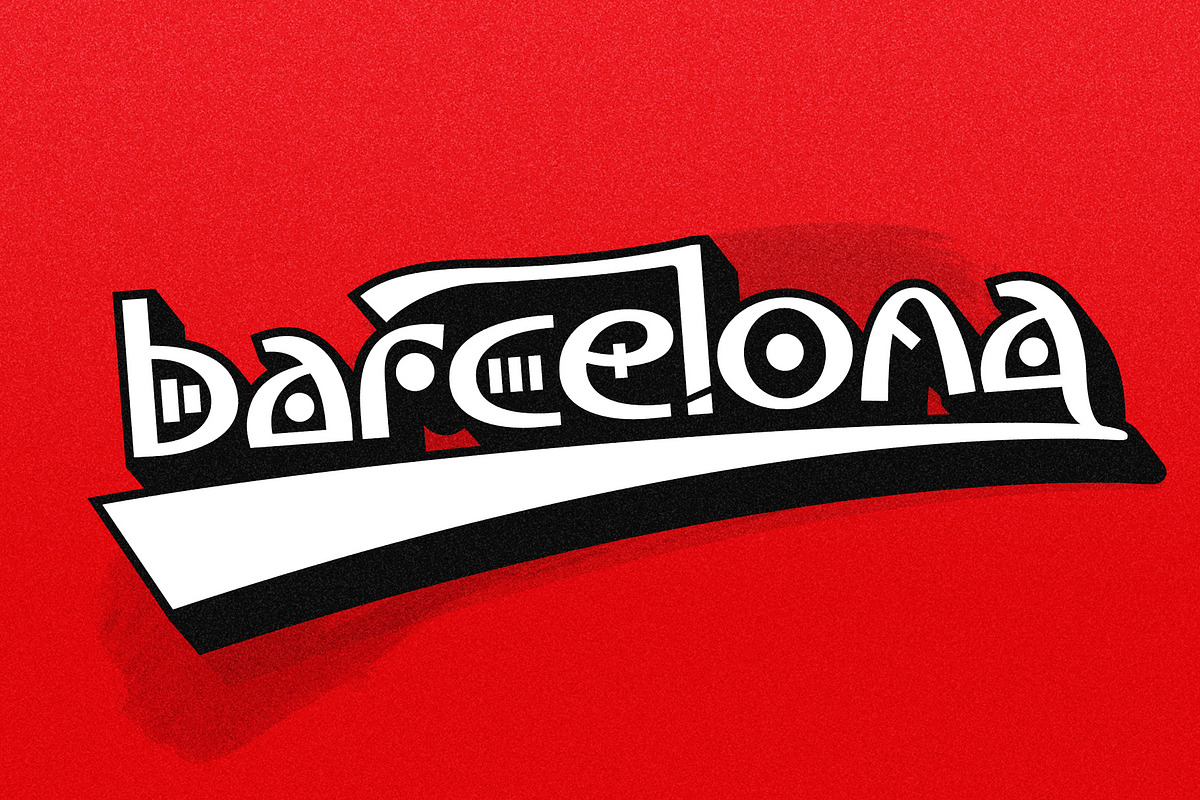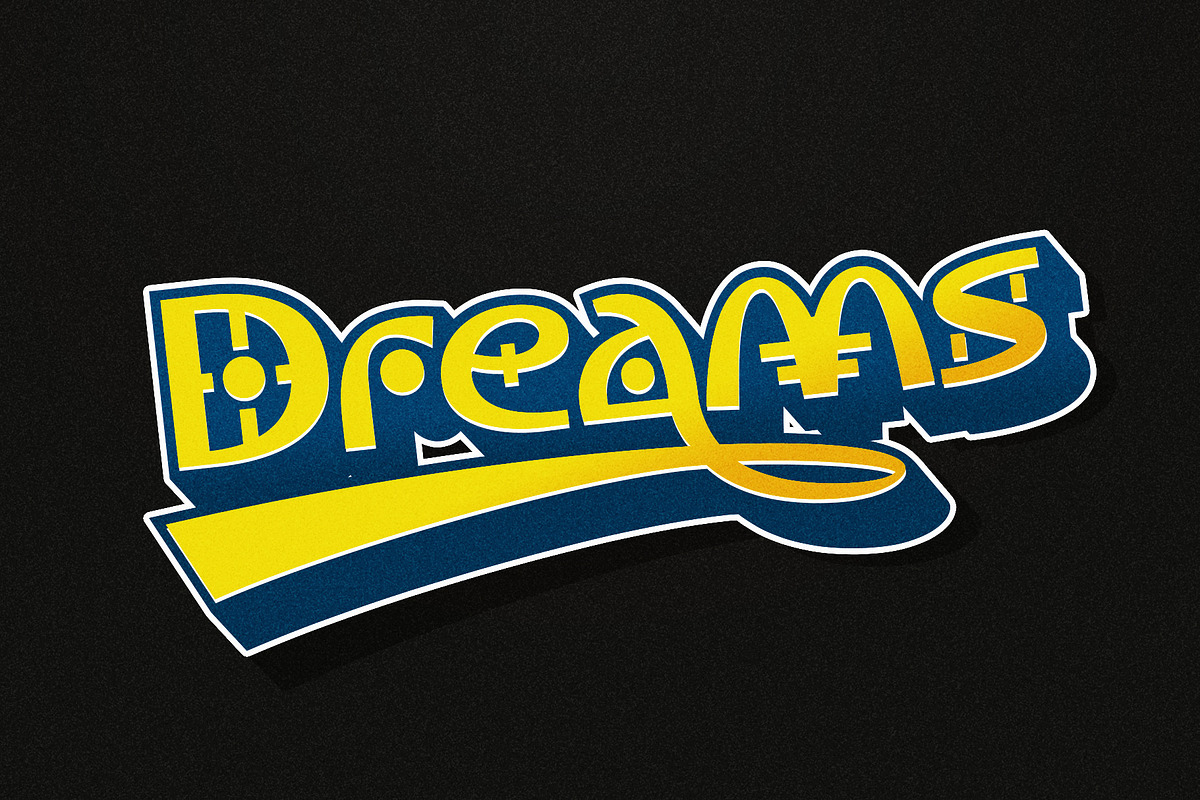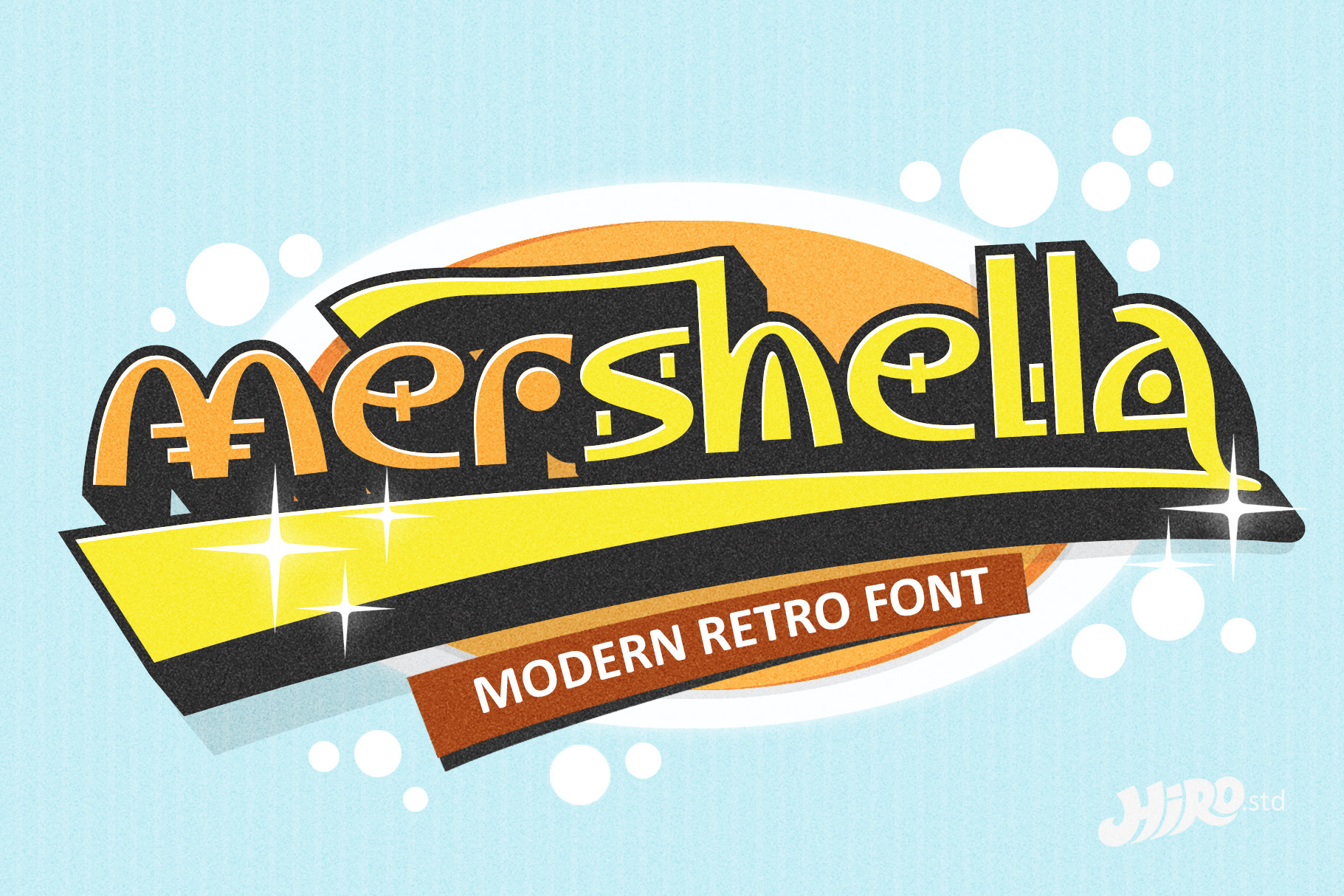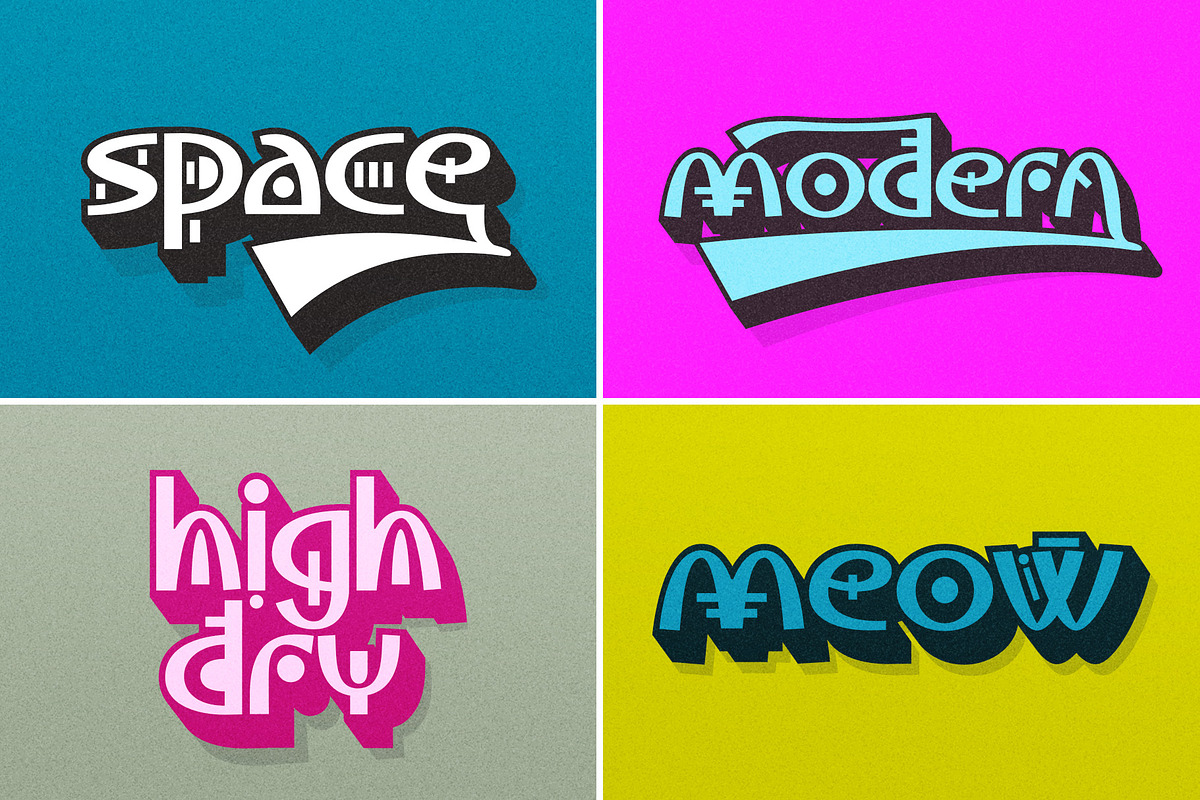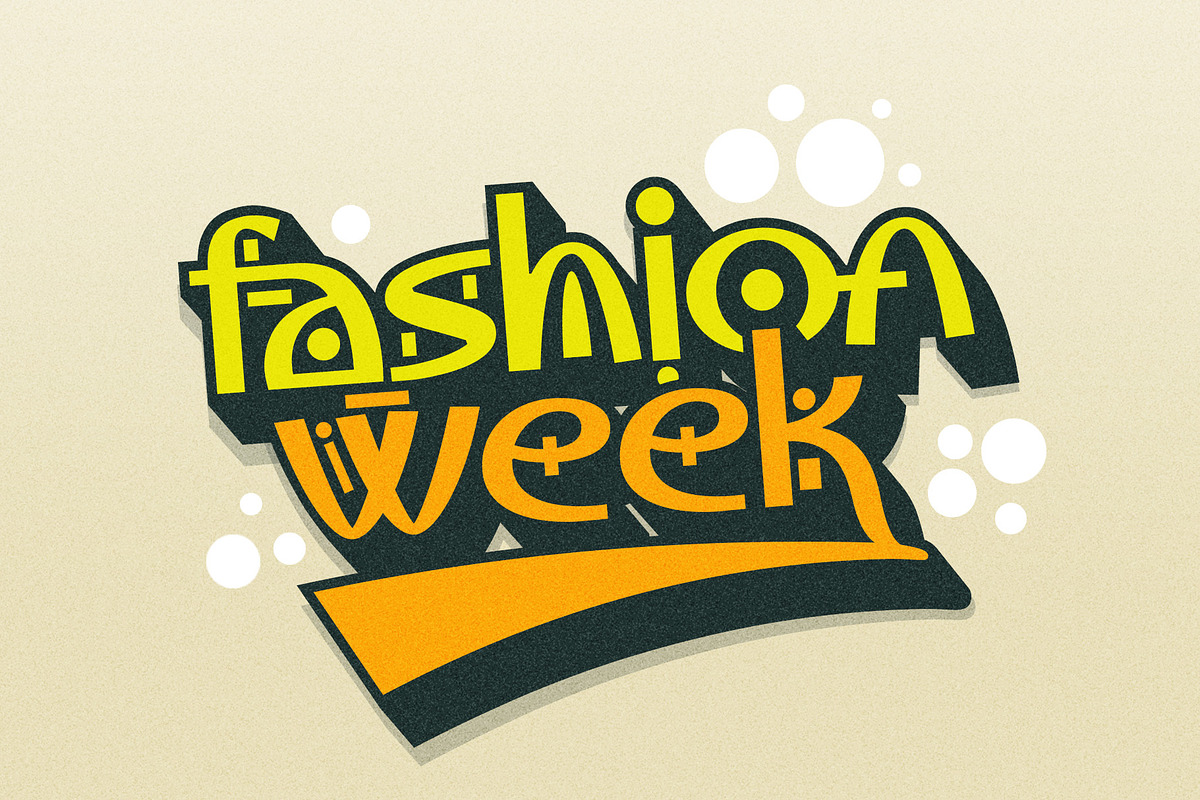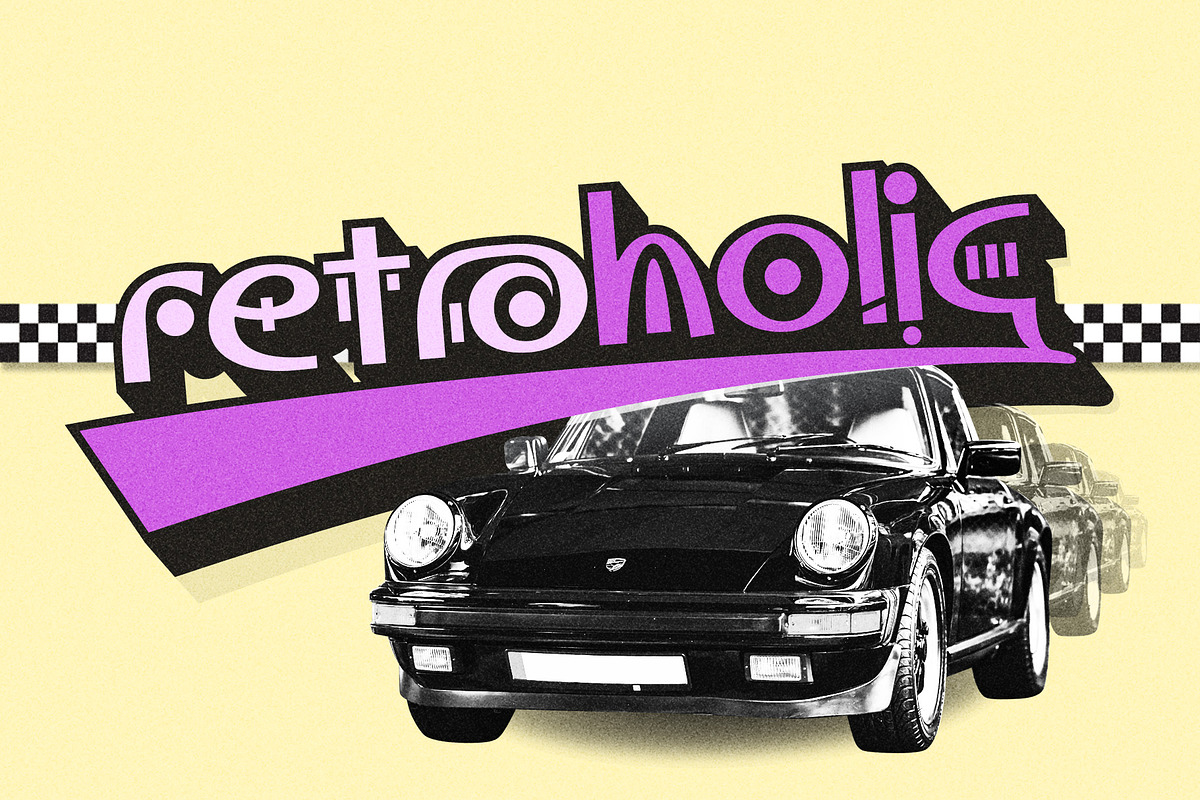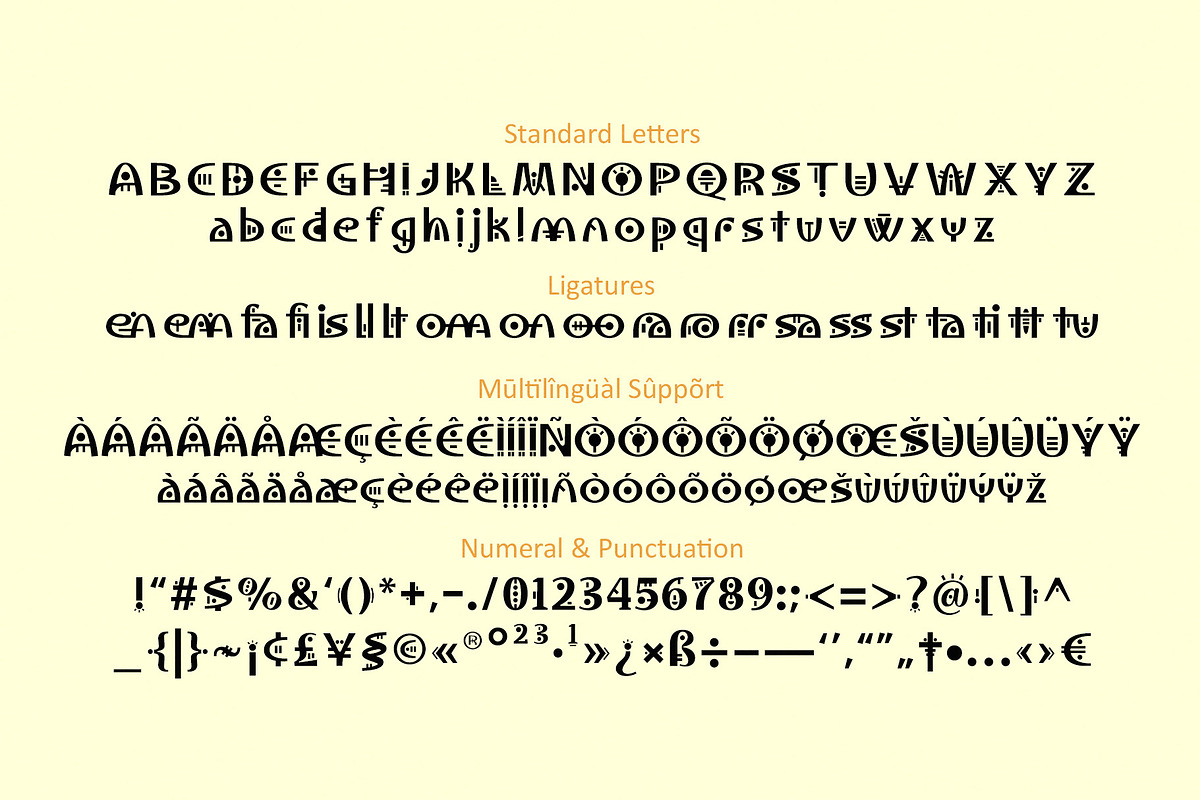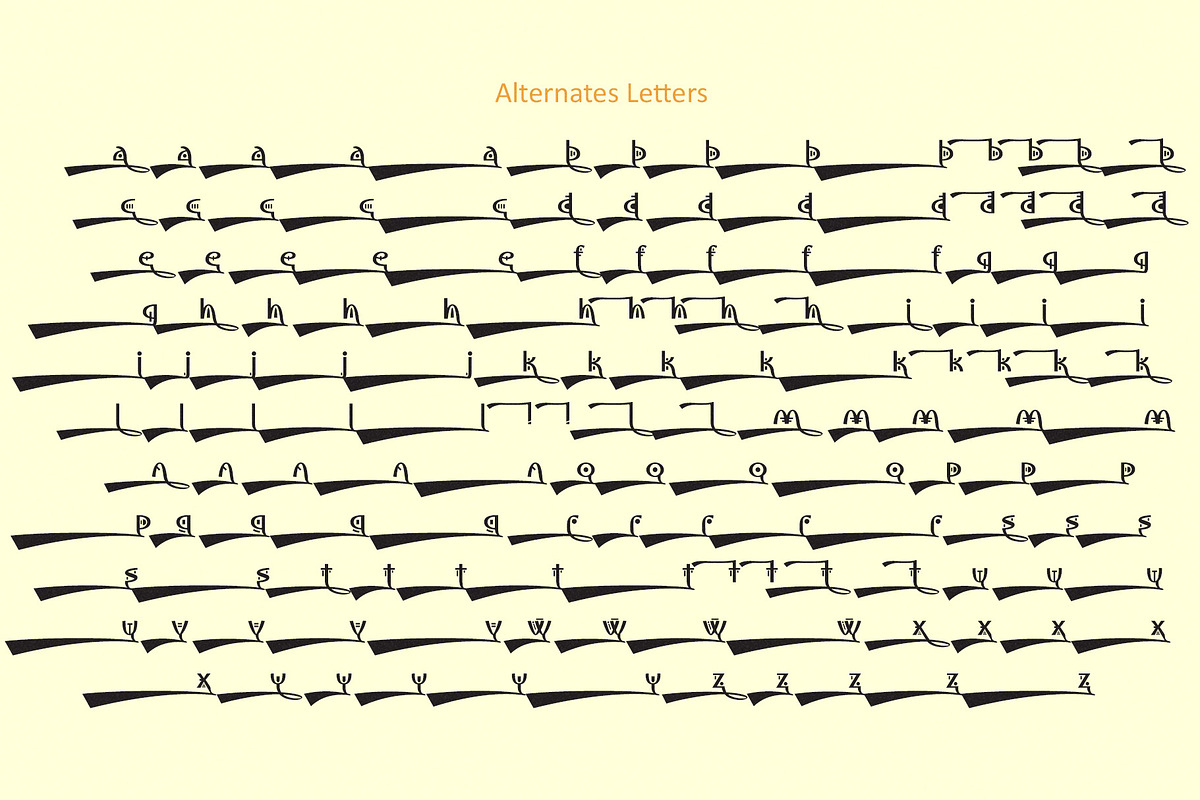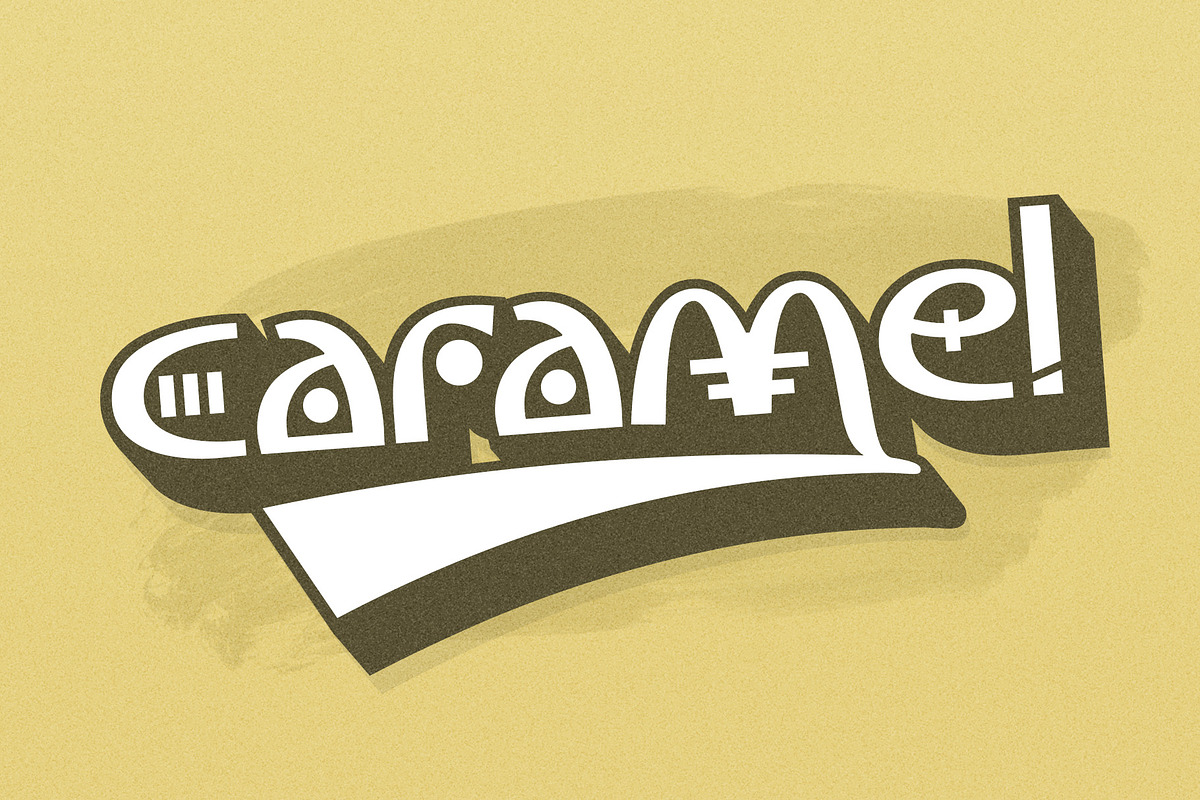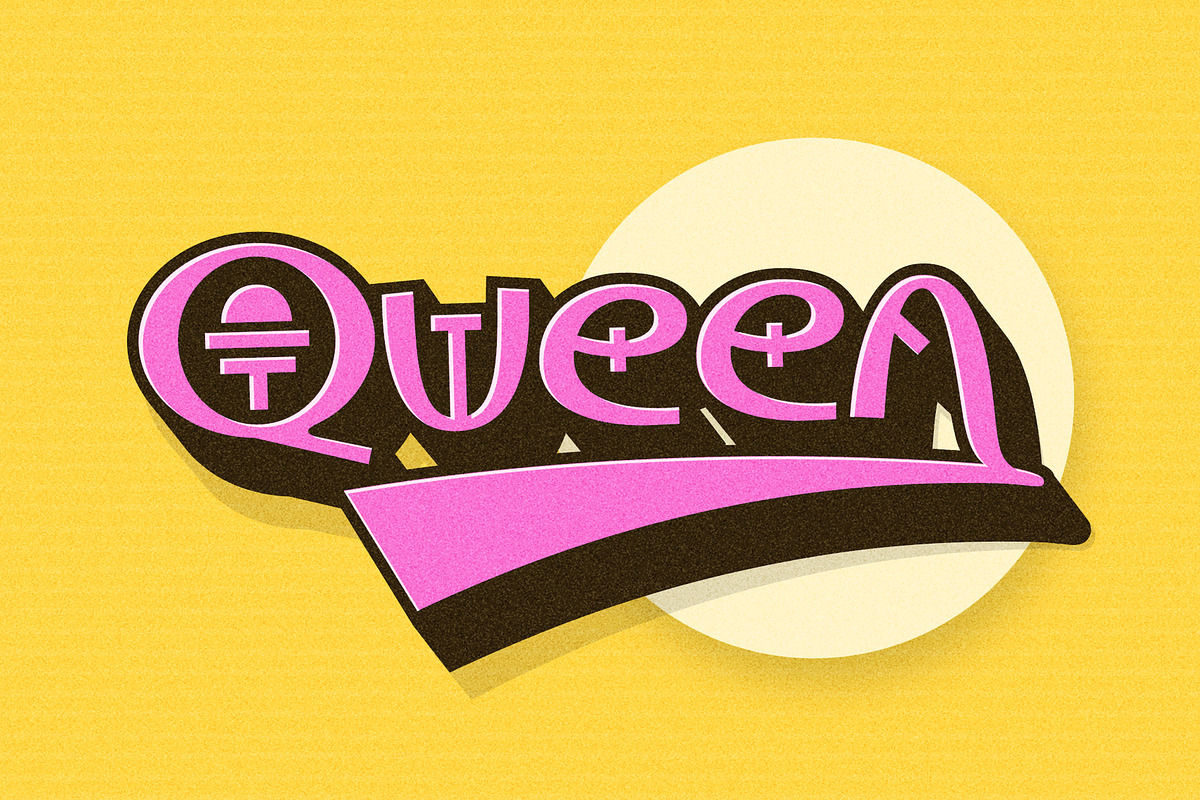
Mershella - Modern Retro Font
Mershella is display Font
This font describes about modern life, stylist, modern, retro, vintage and easy to use. Mershella inspired by retro and vintage era.
- Alternates letters
- Support Ligatures
USE Mershella display Font works great in Logotype, T-shirt/ Apparel Design, Title, Poster and Magazine.